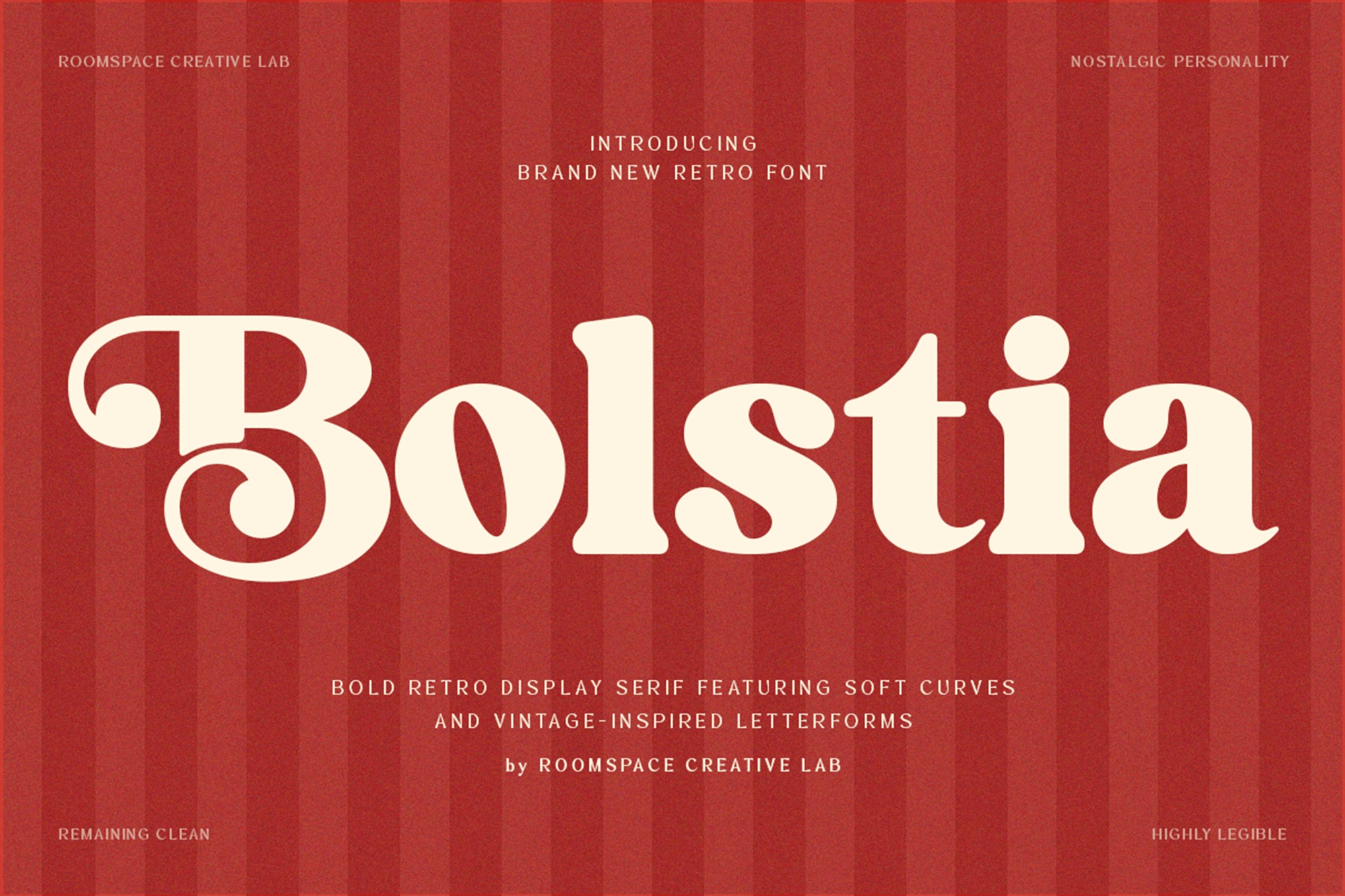
Bolstia – Retro Serif Font
Bolstia – Retro Serif Font is a professionally designed typeface that delivers clarity, structure, and consistent performance across various design applications. Bolstia is a bold retro display serif inspired by classic American signage, vintage advertisements, old packaging, and nostalgic editorial typography. It features soft curves, sturdy proportions, and distinctive swash alternates that create warm, expressive headlines while maintaining excellent readability.
Designed primarily for display use, Bolstia is ideal for branding projects that require a timeless personality with a friendly vintage feel. Whether you’re creating logos, product packaging, posters, café branding, apparel graphics, labels, or social media visuals, this typeface delivers a strong retro presence without sacrificing clarity.
The family includes both Regular and Italic styles, along with a collection of alternate characters and ligatures that allow you to create more customized and unique typography compositions.